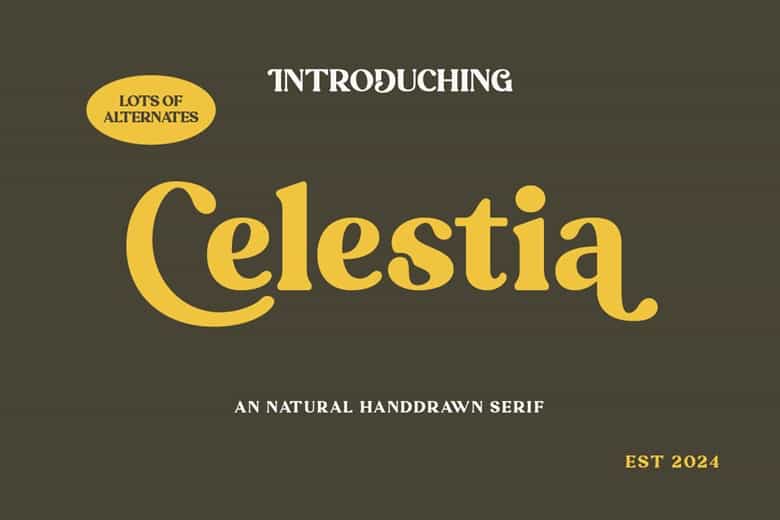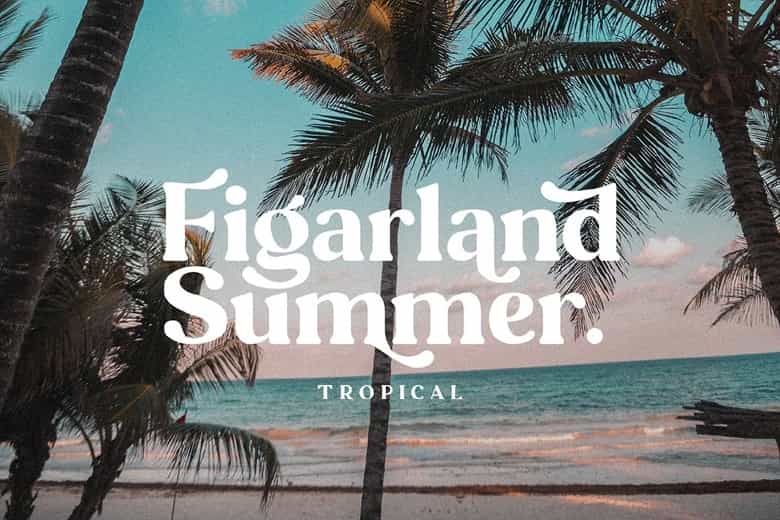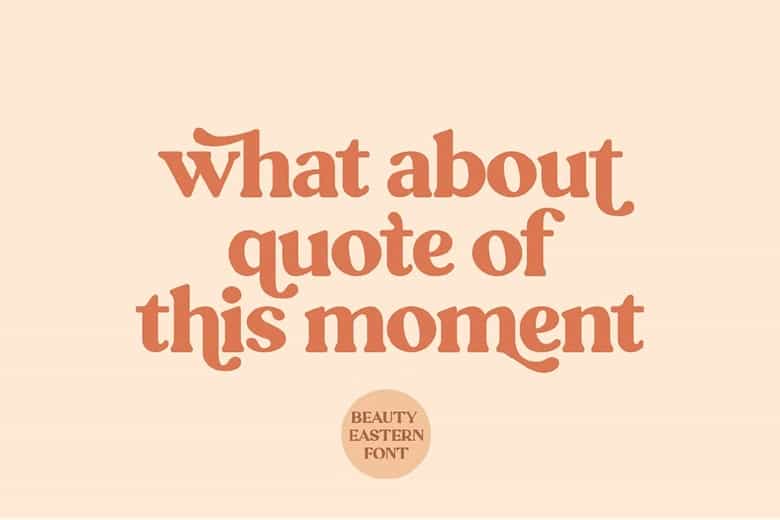
Celestia is a natural handdrawn serif font. This font would suit best photography, watermarks, social media, ads, logos and branding, invitations, products, labels, business cards, packaging, events, and more.